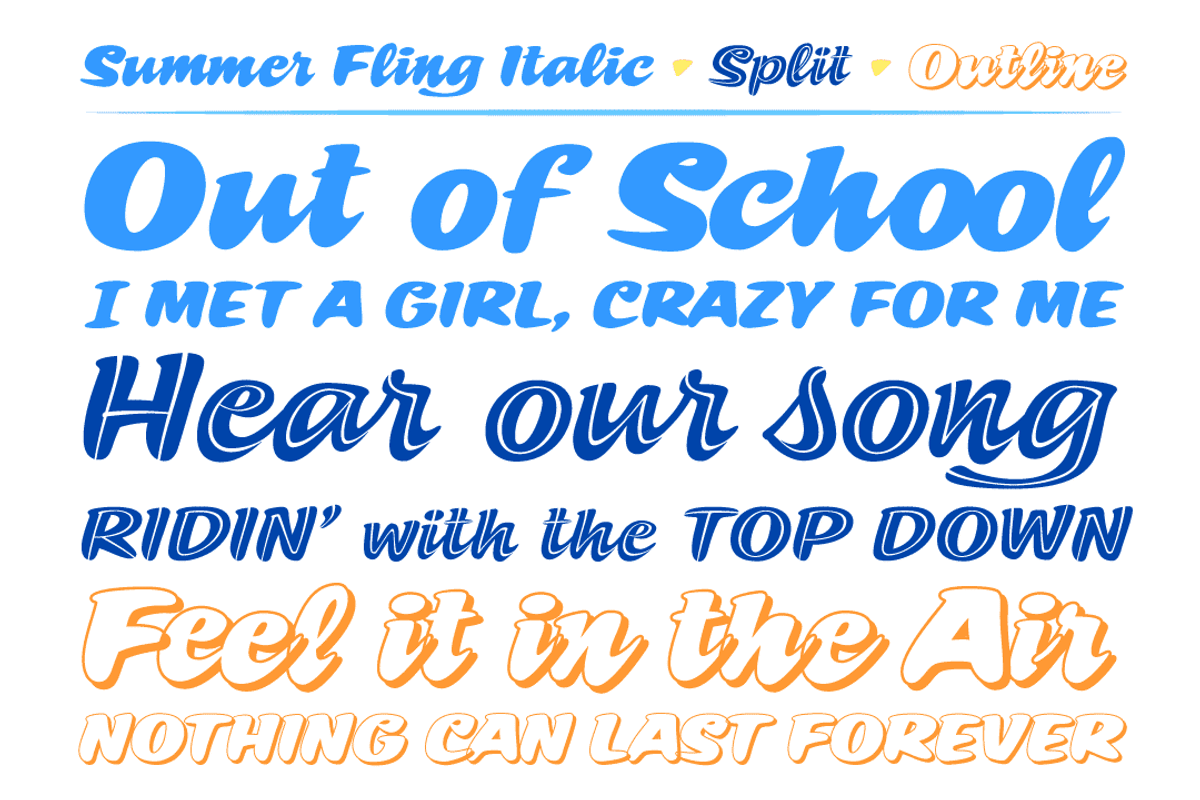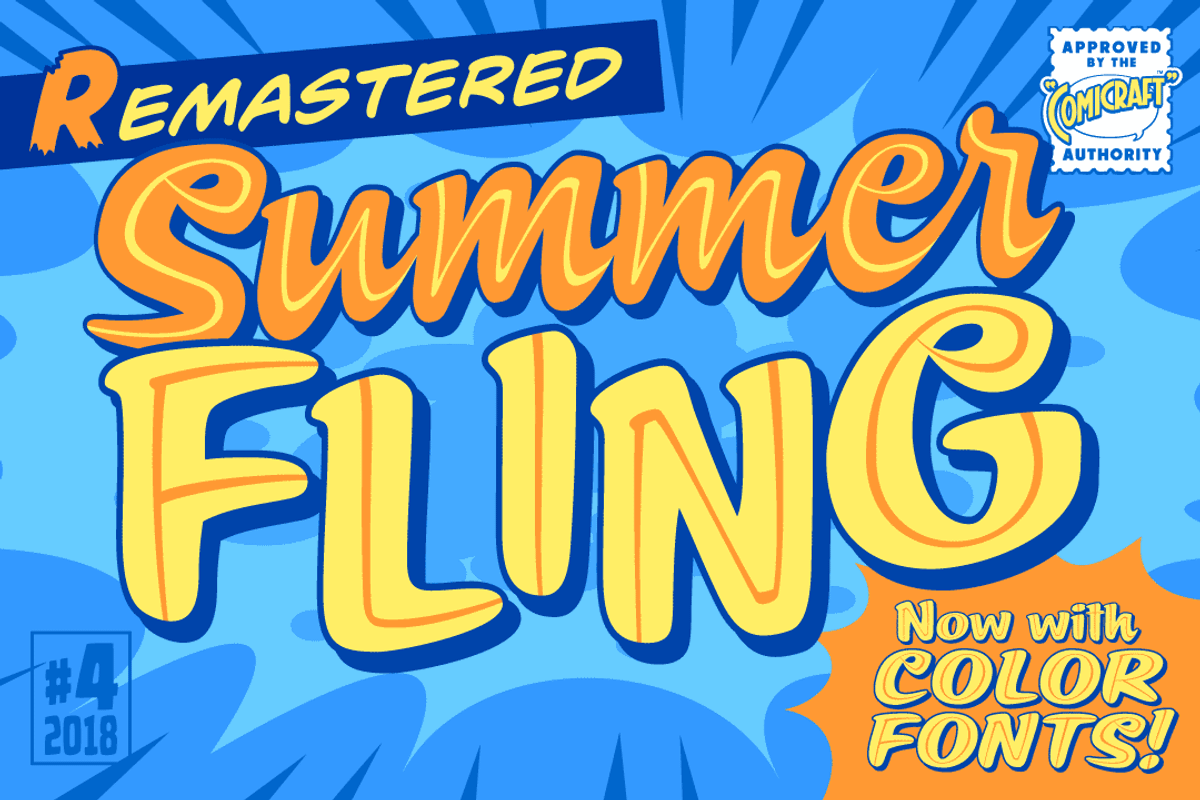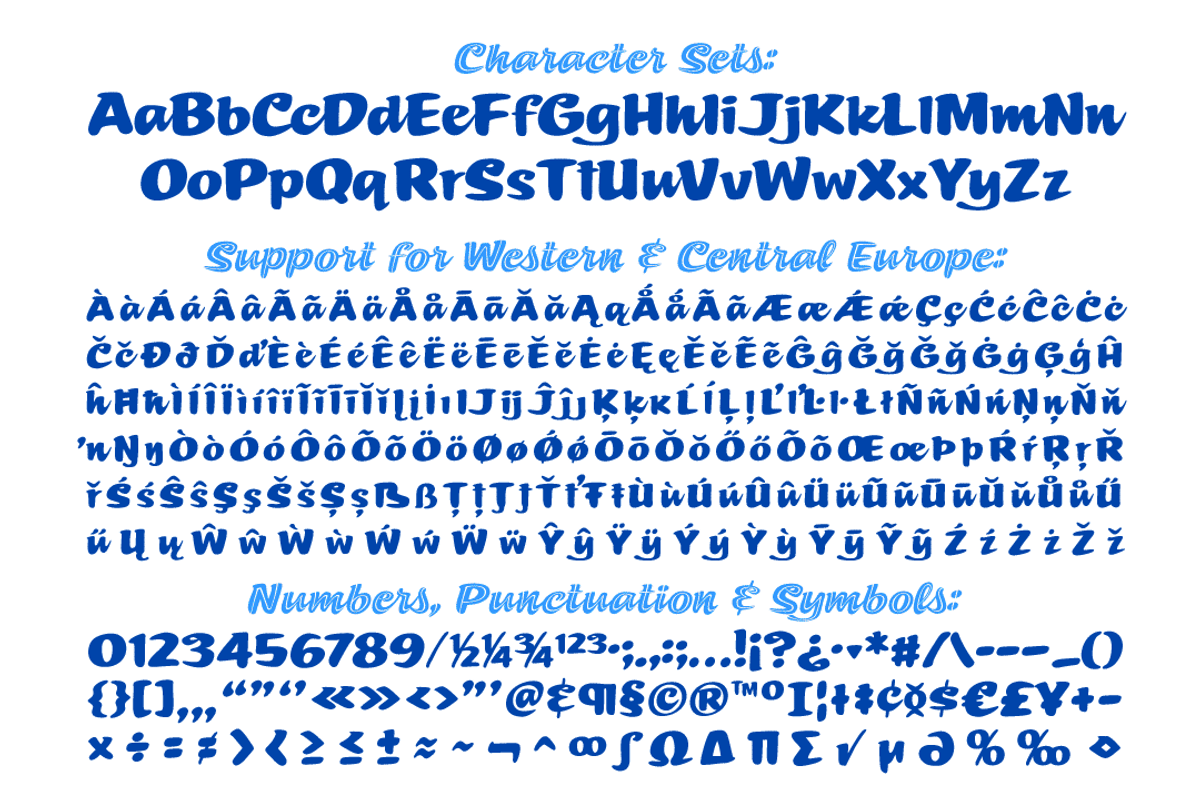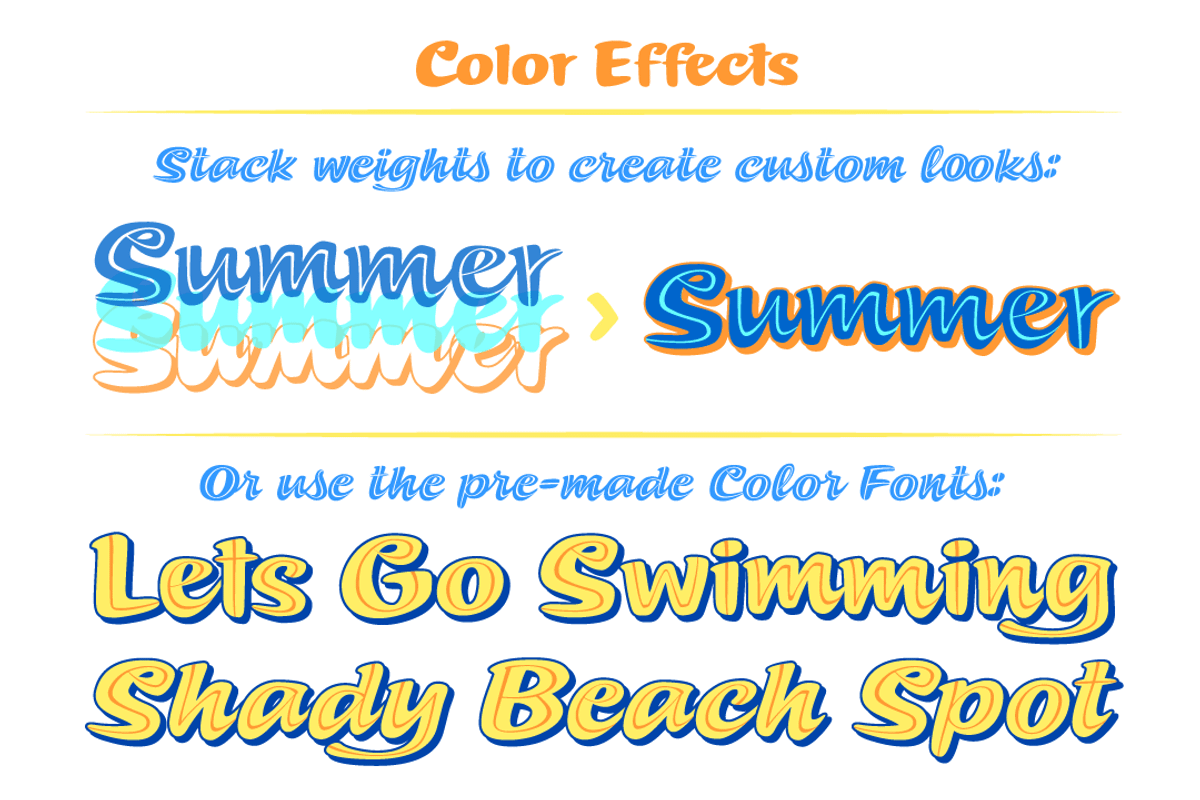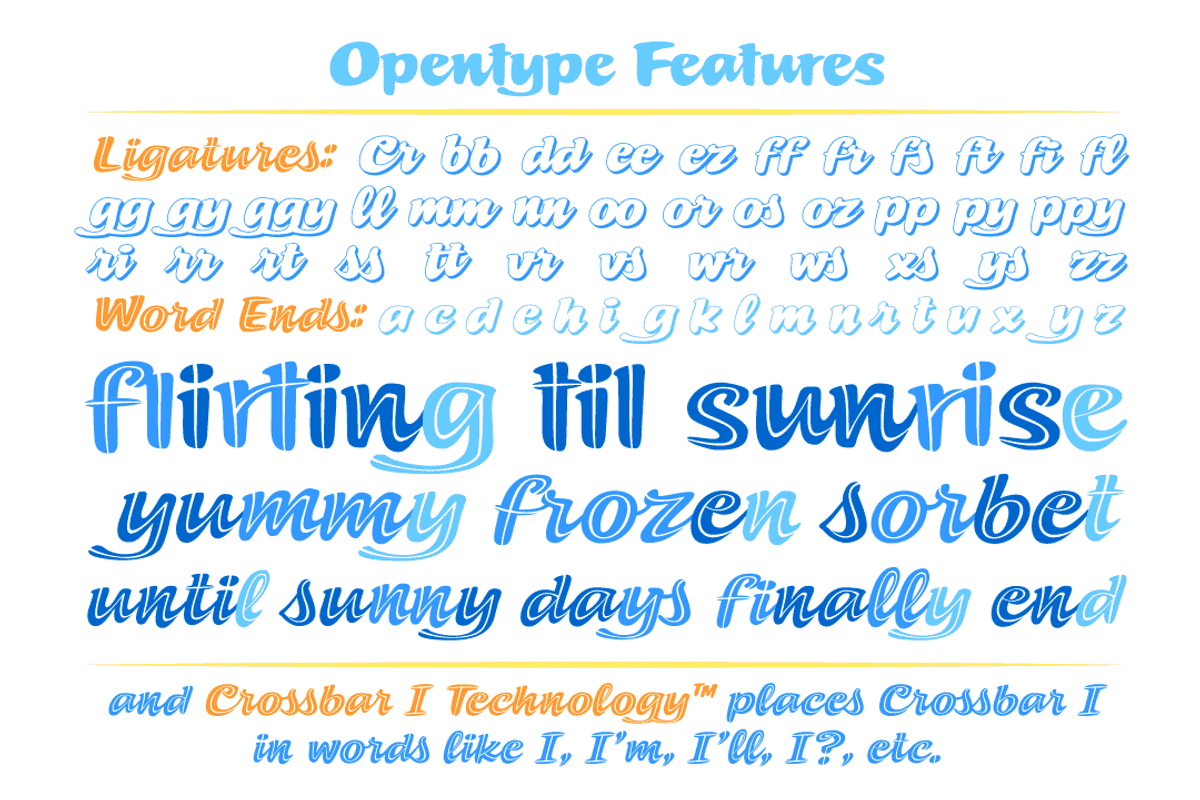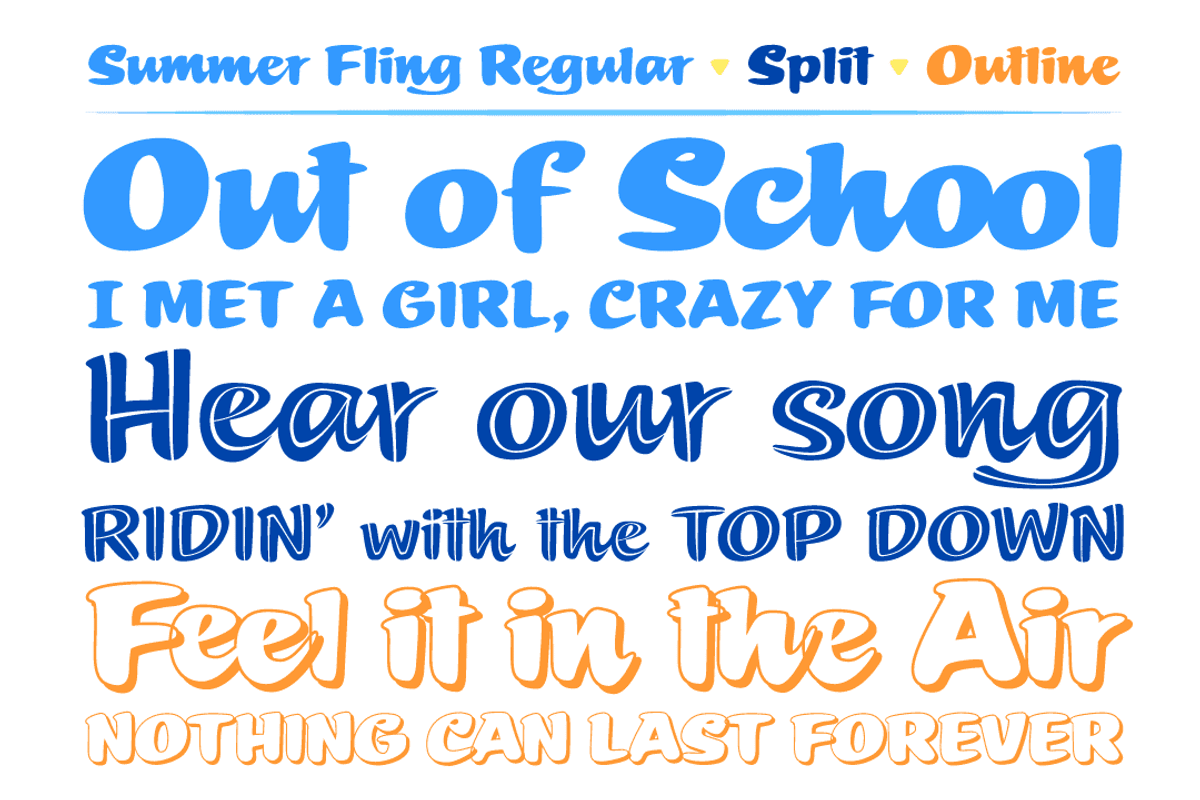
Summer Fling - brush signage font
Spring has Sprung! The Fling has Flung — and all that will be left after the inevitable Split is a fluttering in your heart, a blushful remembrance of lost love, an aching heart full of excitement and a strange sense of regret.
As you read and re-read Shakespeare's sonnets to make sense of the swirling waters of your affectations, consider this font as the perfect headline for the Summer Blockbuster Romance you're sure to pen in the warm, wine-soaked evenings ahead of you.
Summer Fling is a breezy brush script lettering font in the style of classic sign painting, complete with custom letter pairs and word ends to create authentic hand-painted feel.